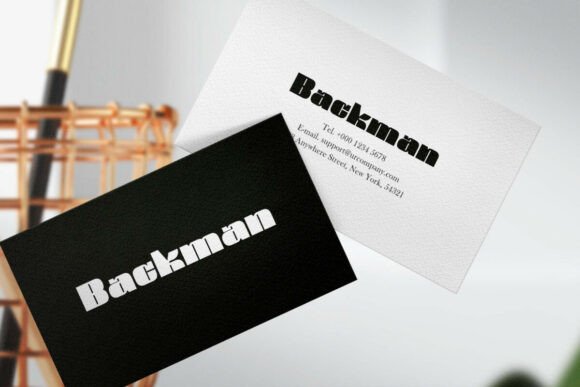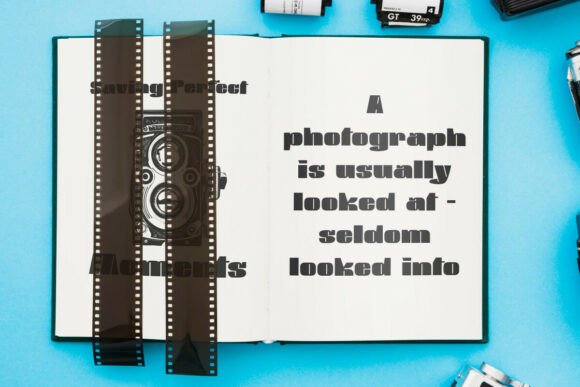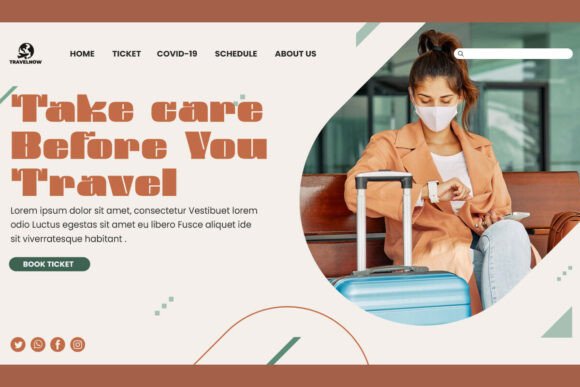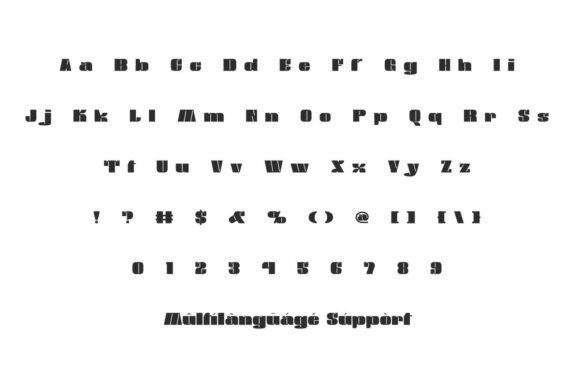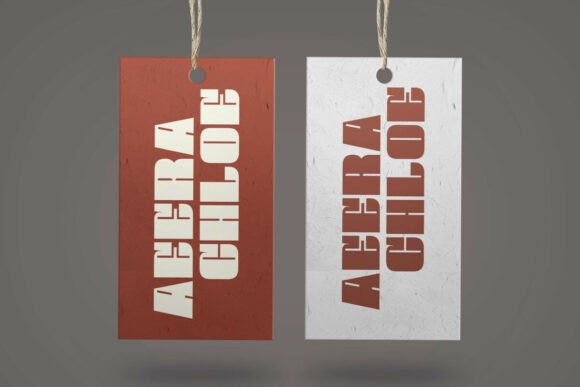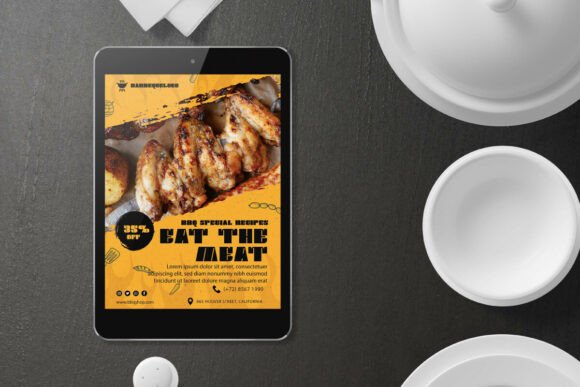
Unleash the Power of Backman Font: A Heavy-Hitting Slab Serif for Bold Designs
In the world of typography, fonts play a crucial role in conveying the tone and personality of a brand. For designers and crafters looking to make a statement, the Backman font is an excellent choice. This ultra-bold slab serif is designed to command attention, making it perfect for high-impact branding, powerful sports logos, and editorial headlines that need to stand out from the crowd.
The Characteristics of Backman Font
Backman font boasts massive, blocky letterforms with subtle, sharp terminals that give it a contemporary industrial edge. Its thick strokes ensure maximum legibility even from a distance, making it a go-to for outdoor signage and poster design. The font’s robust design makes it ideal for creating a premium, authoritative presence in various design projects.
Key Features of Backman Font
- Ultra-Bold Design: The Backman font features an ultra-bold design that grabs attention and makes a lasting impression.
- Slab Serif Style: The font’s slab serif style gives it a unique, industrial look that sets it apart from other typefaces.
- Subtle, Sharp Terminals: The subtle, sharp terminals add a touch of sophistication to the font’s design.
- Thick Strokes: The font’s thick strokes ensure maximum legibility even from a distance.
Use Cases for Backman Font
The Backman font is versatile and can be used in various design projects, including:
- High-Impact Branding: The font’s bold design makes it perfect for creating a strong brand identity.
- Powerful Sports Logos: The font’s industrial edge makes it ideal for sports logos that require a bold and rugged look.
- Editorial Headlines: The font’s thick strokes ensure maximum legibility, making it perfect for editorial headlines that need to stand out.
- Outdoor Signage: The font’s bold design and thick strokes make it a go-to for outdoor signage.
- Poster Design: The font’s industrial edge and bold design make it perfect for poster design.
Pairing and Styling Backman Font
To get the most out of the Backman font, it’s essential to pair it with complementary fonts and styles. Here are some tips:
- Pair with a Clean, High-Contrast Sans-Serif: Pairing the Backman font with a clean, high-contrast sans-serif font creates a professional look that’s perfect for branding and editorial design.
- Layer with Textures: Layering the Backman font with textures adds a vintage, letterpress aesthetic that’s perfect for creating a rugged, industrial look.
Designing with Backman Font
Whether you’re designing a rugged apparel brand or a bold magazine cover, the Backman font provides the structural integrity and visual weight required for a premium, authoritative presence. Here are some design tips:
- Use for Headlines and Titles: Use the Backman font for headlines and titles to create a bold and attention-grabbing design.
- Experiment with Colors and Textures: Experiment with different colors and textures to add depth and visual interest to your design.
- Balance with Other Fonts: Balance the Backman font with other fonts to create a harmonious and visually appealing design.
In conclusion, the Backman font is a powerful tool for designers and crafters looking to create bold and attention-grabbing designs. Its ultra-bold design, slab serif style, and thick strokes make it perfect for high-impact branding, powerful sports logos, and editorial headlines. By pairing it with complementary fonts and styles, you can create a professional and visually appealing design that commands attention.